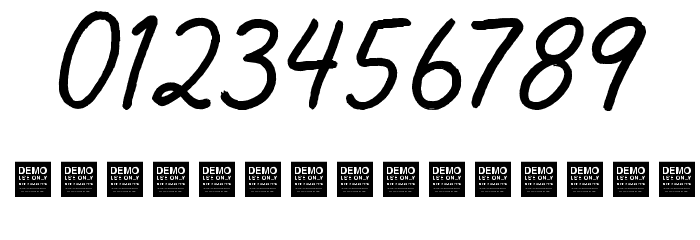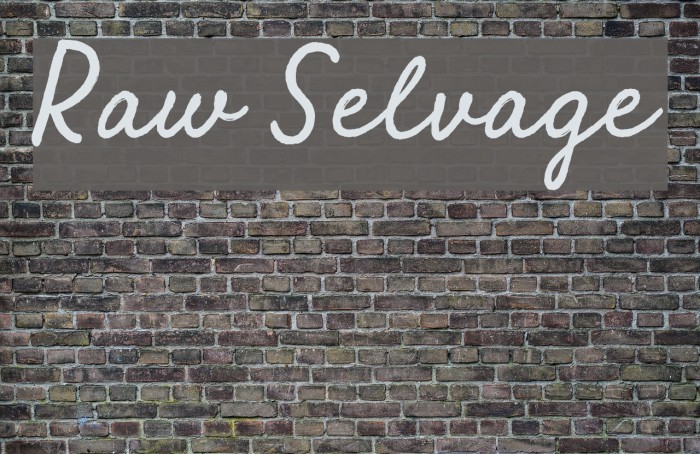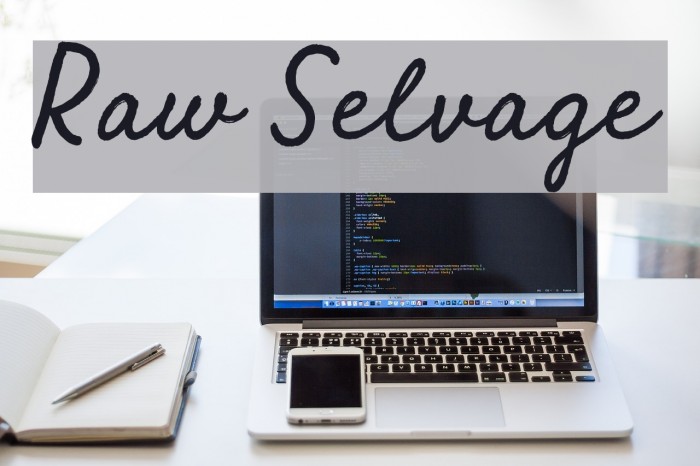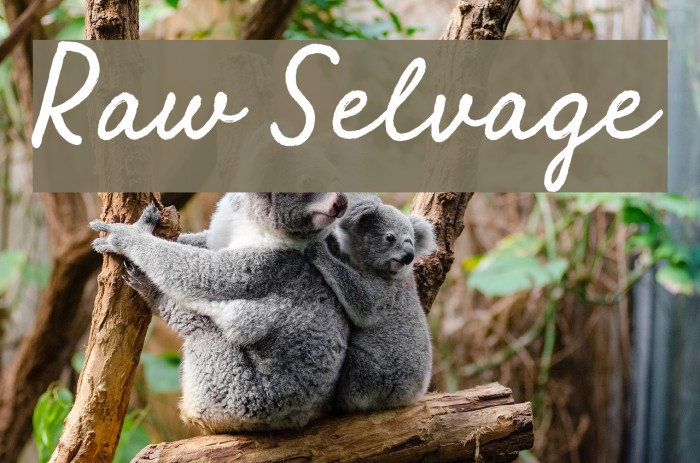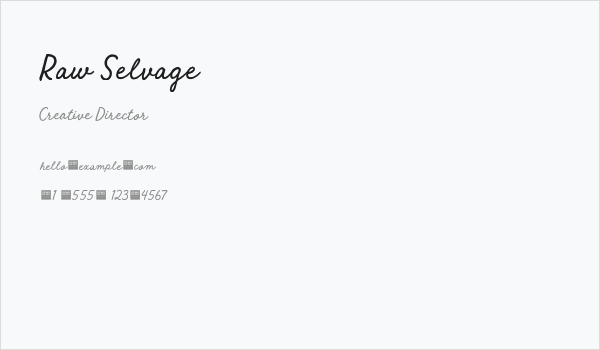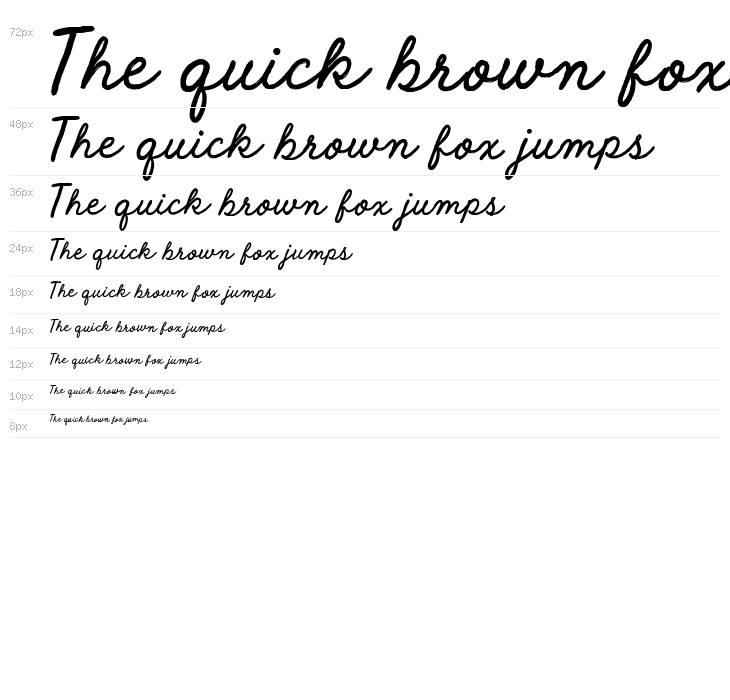
Raw Selvage Font
Raw Selvage Description
This font features a handwritten, cursive style with smooth, flowing lines that give it a personal and informal feel. The characters are slightly slanted, enhancing the script-like appearance. Uppercase letters maintain a consistent height, while lowercase letters vary in size, adding to the natural, handwritten effect. The numbers are clear and legible, matching the style of the letters. Special characters are included, maintaining the same fluidity and style as the alphabet. The overall design is elegant yet casual, making it suitable for a variety of creative projects.
| Overall Style | Casual, Elegant |
| Proposed Projects | Ideal for invitations, greeting cards, personal branding, and creative projects that require a personal touch. |